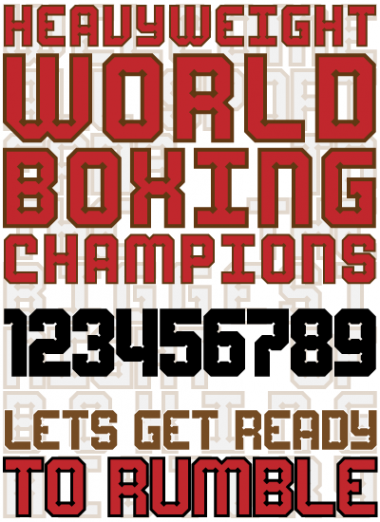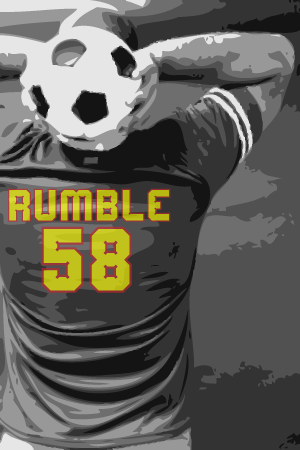
Rumble
jmarquez
Let's get ready to Rumble! yes I know there's a "'" missing in the sample but I haven't done that glyph yet. lol
Nice angle detail :)